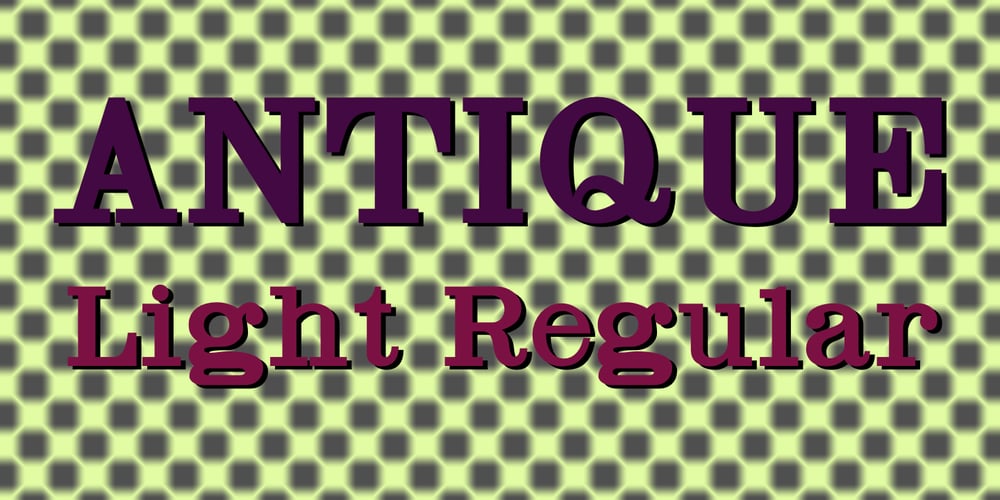
Antique Light
Antique Light font
Antique Light Font Family was designed by Jordan Davies and published by Wooden Type Fonts. Antique Light contains 1 styles and family package options. One of the classic display types of the 19th century, a slab font, suitable for text and display.